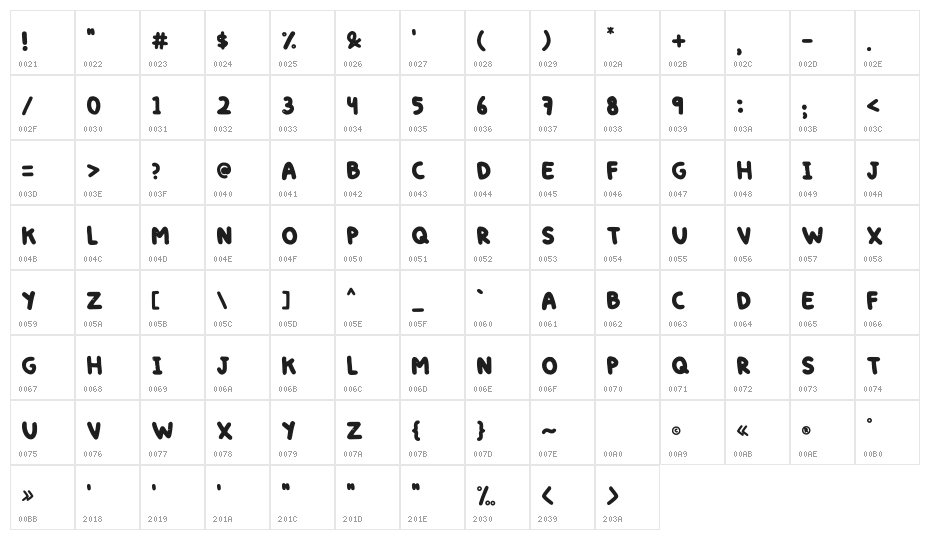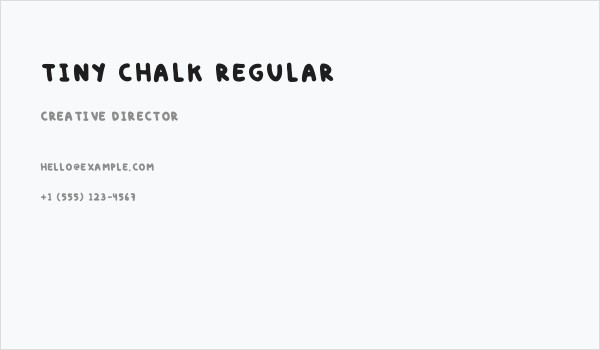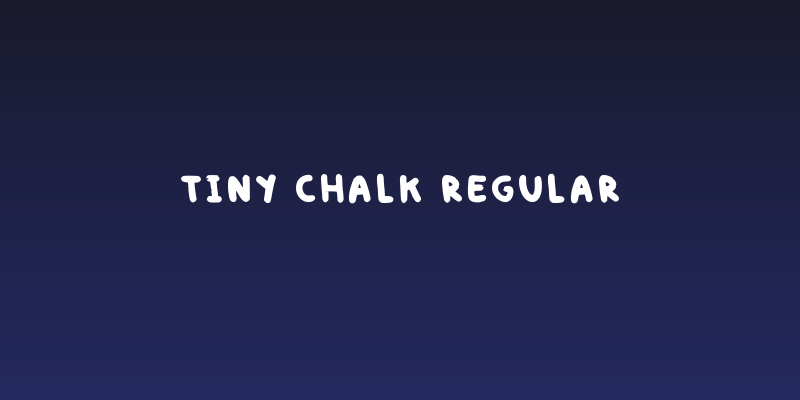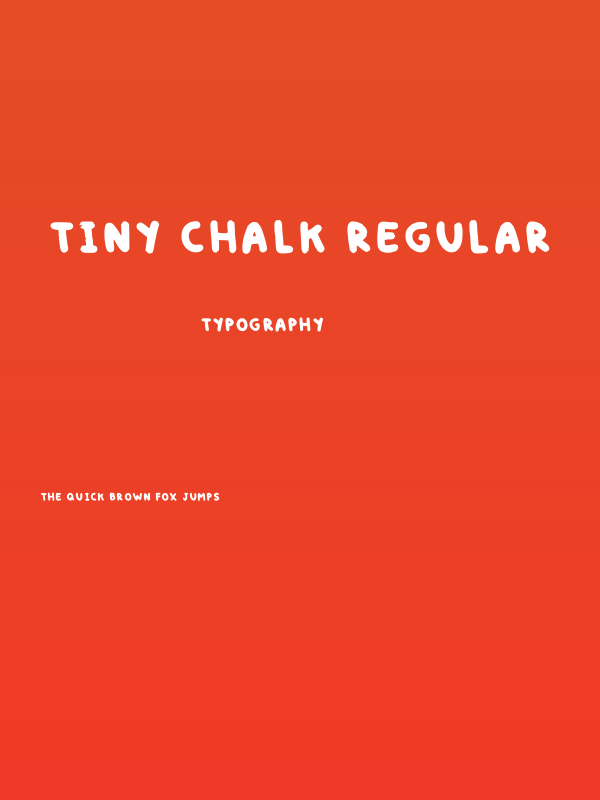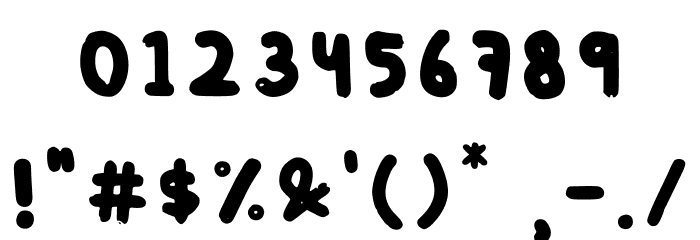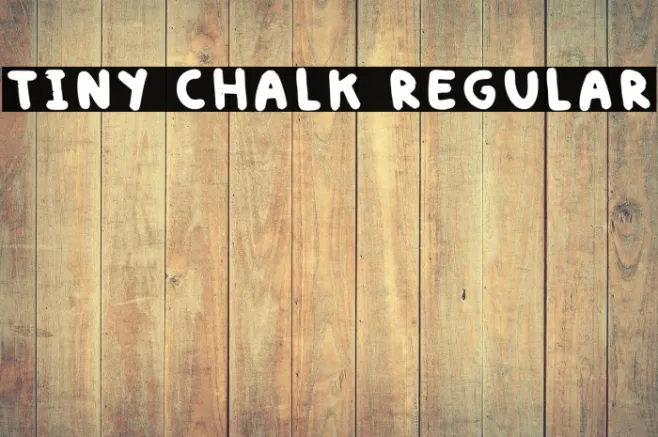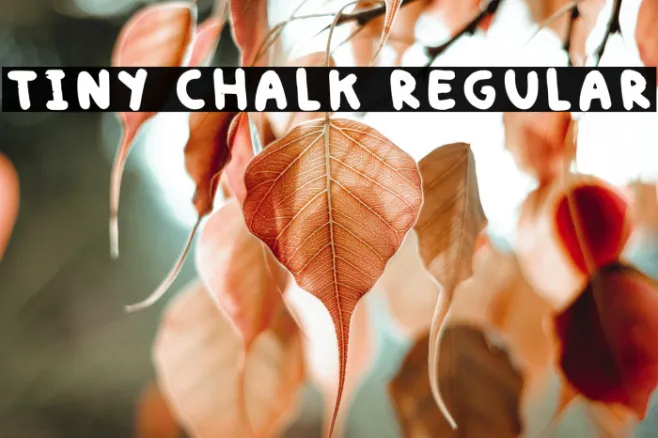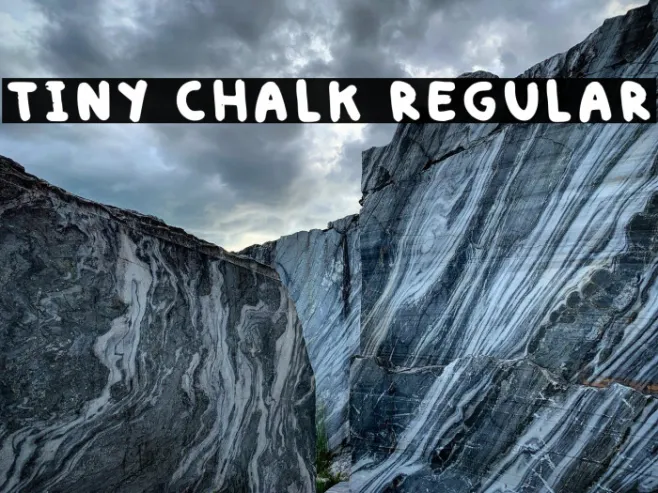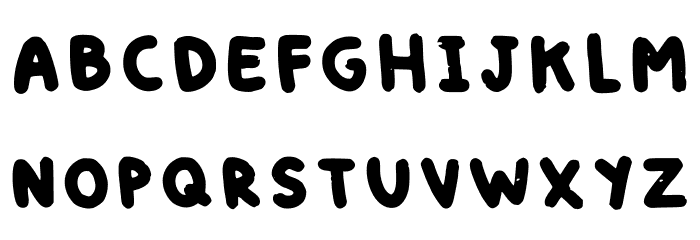
Tiny Chalk Regular Font
Tiny Chalk Regular Description
This playful and informal font mimics the look of chalk writing on a blackboard. The characters are bold and rounded, giving a friendly and approachable feel. The strokes are consistent in width, providing a uniform appearance across all letters and numbers. The font includes both uppercase and lowercase letters, numerals, and a variety of special characters. Its hand-drawn style makes it ideal for designs that require a casual and fun aesthetic, such as children's books, educational materials, or playful branding projects.
| Proposed Projects | Ideal for children's books, educational materials, playful branding, and casual design projects. |